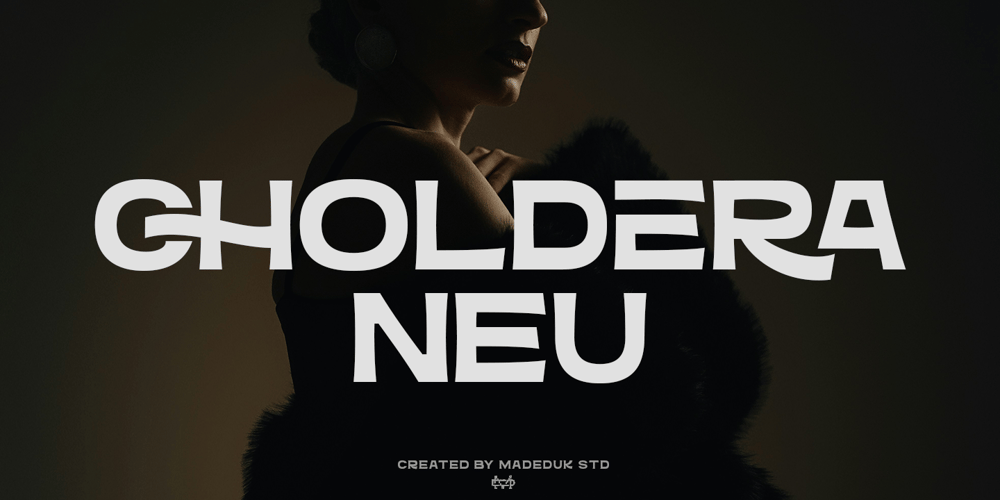
Choldera Neu Font Family was designed by madededuk and published by madeDeduk. Choldera Neu contains 2 styles and family package options. Choldera Neu is an uppercase font, comes with a single weight and has different widths between upper and lower case letters, so you can mix it up in every design of your project. Legible and expressive shapes. high-end fashion and cultural environments you can explore and combine. use this font for any branding, product packaging, headline, invitation, quotes, t-shirt, label, poster, logo etc.